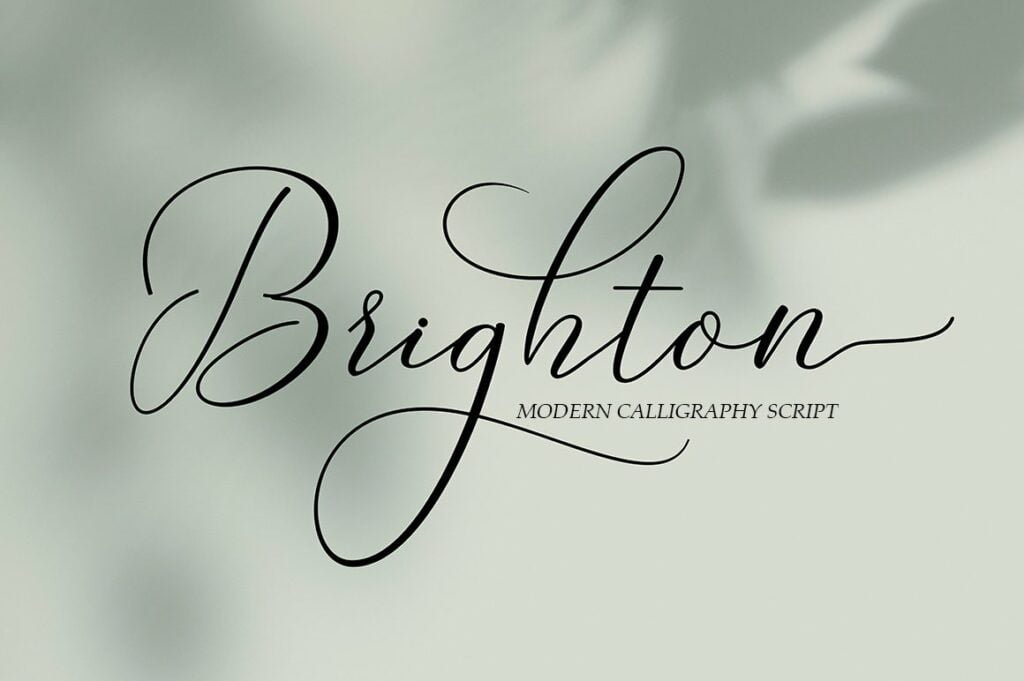
Brighton Font
Brighton Script are a new modern script font with an irregular base line. Style trendy and feminine. Brighton Script looks beautiful for branding, logos, wedding goods, greeting cards, fashion, lookbook, marketing promotions. Including initial letters and terminals, alternates, ligatures and multiple language support.
Brighton Script Calligraphy Font